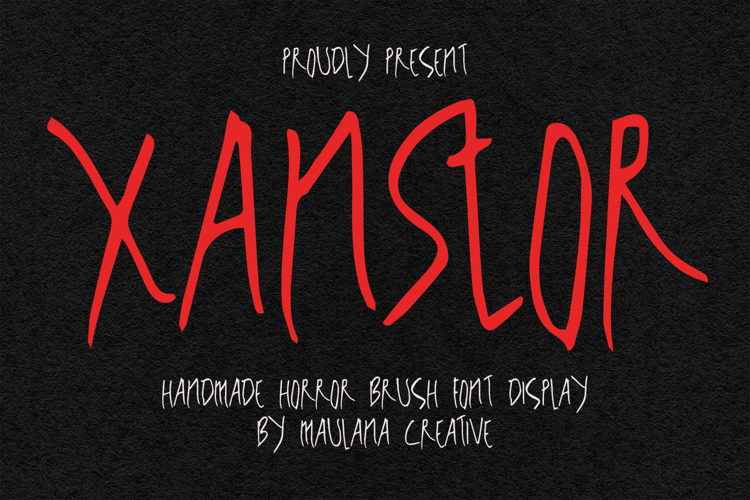
Xanstor is a horror handmade brush font. Fun character with a bit of ligatures. To give you an extra creative work. Xanstor font support multilingual more than 100+ language. This font is good for logo design, Social media, Movie Titles, Books Titles, a short text even a long text letter and good for your secondary text font with sans or serif. Make a stunning work with Xanstor font.